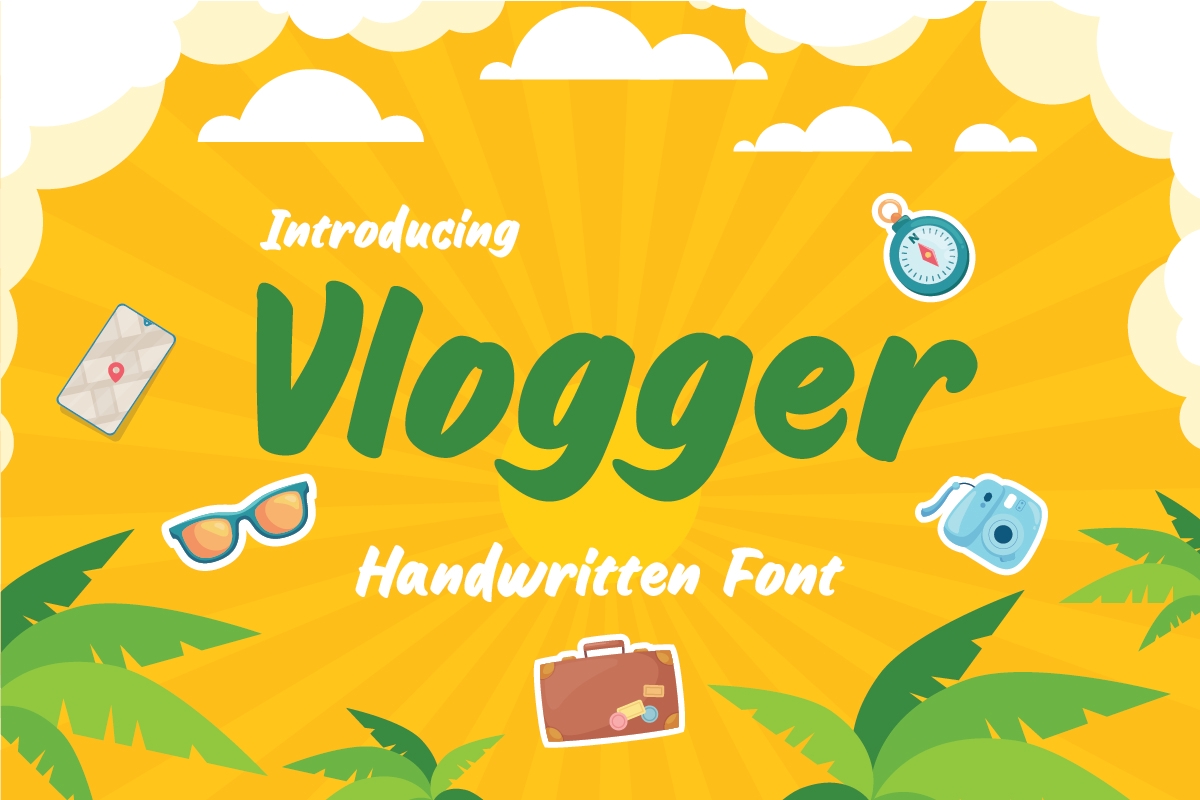
Vlogger
-Fun Headline Youtube Handwritten Font
Vlogger
Vlogger is a Fun Hand-brush Font that's perfect for Headline, Thumbnail or Merchandise. This font specially crafted for your design projects such as banner, poster, flyer, website design, product packaging, merchandise, pillow print and so many more with easy to use but standing out results are so amazing.